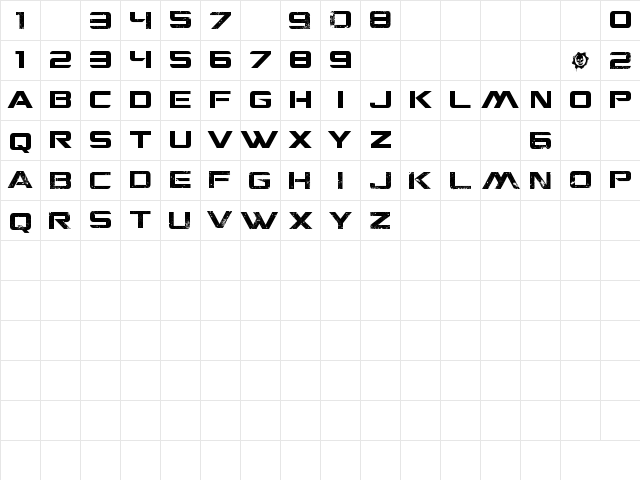
CGM Locust Resistance Regular
Design Context for CGM Locust Resistance Typeface
CGM Locust Resistance is a composed and adaptable typeface that performs quietly and consistently across a wide range of design contexts.